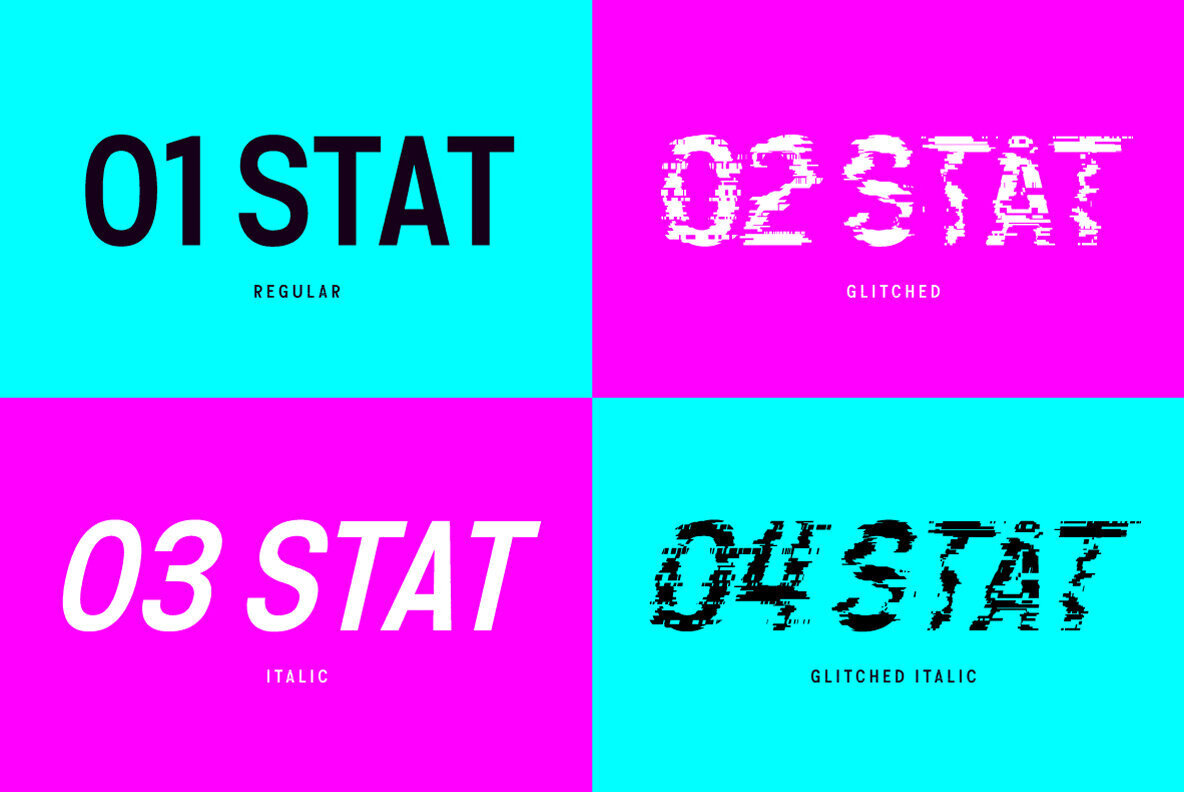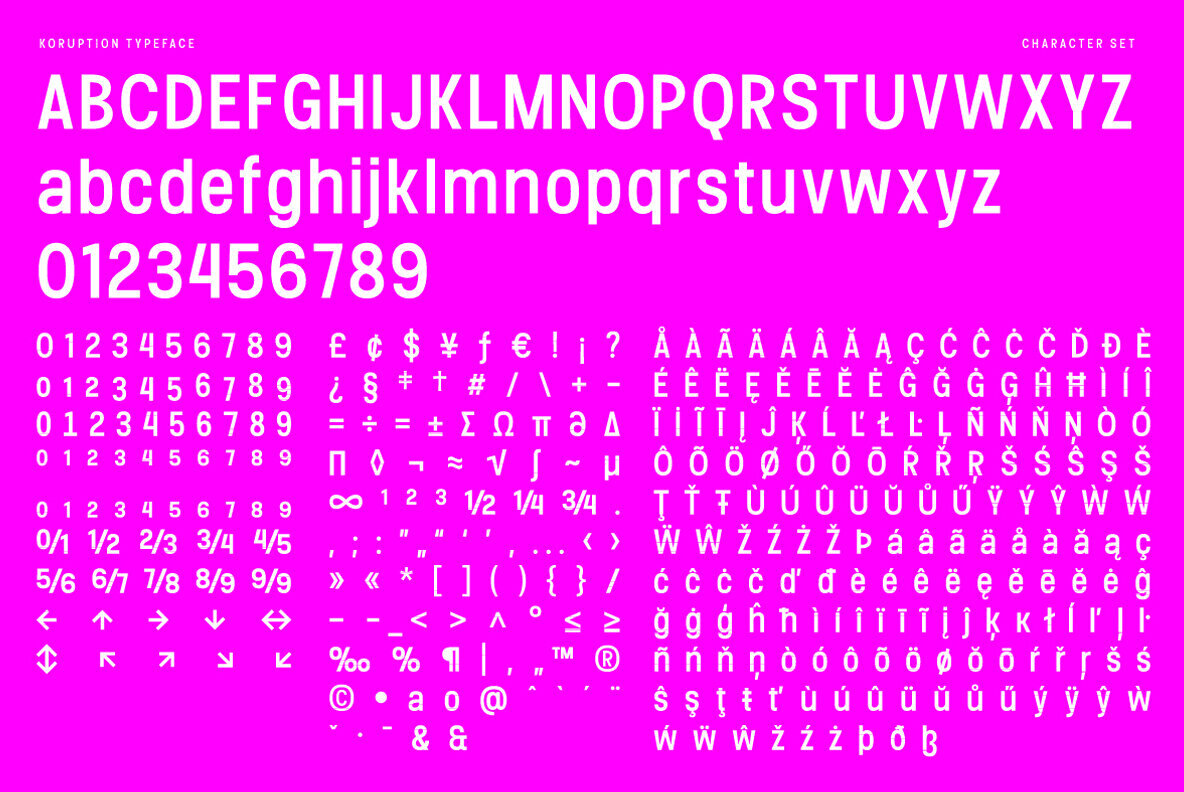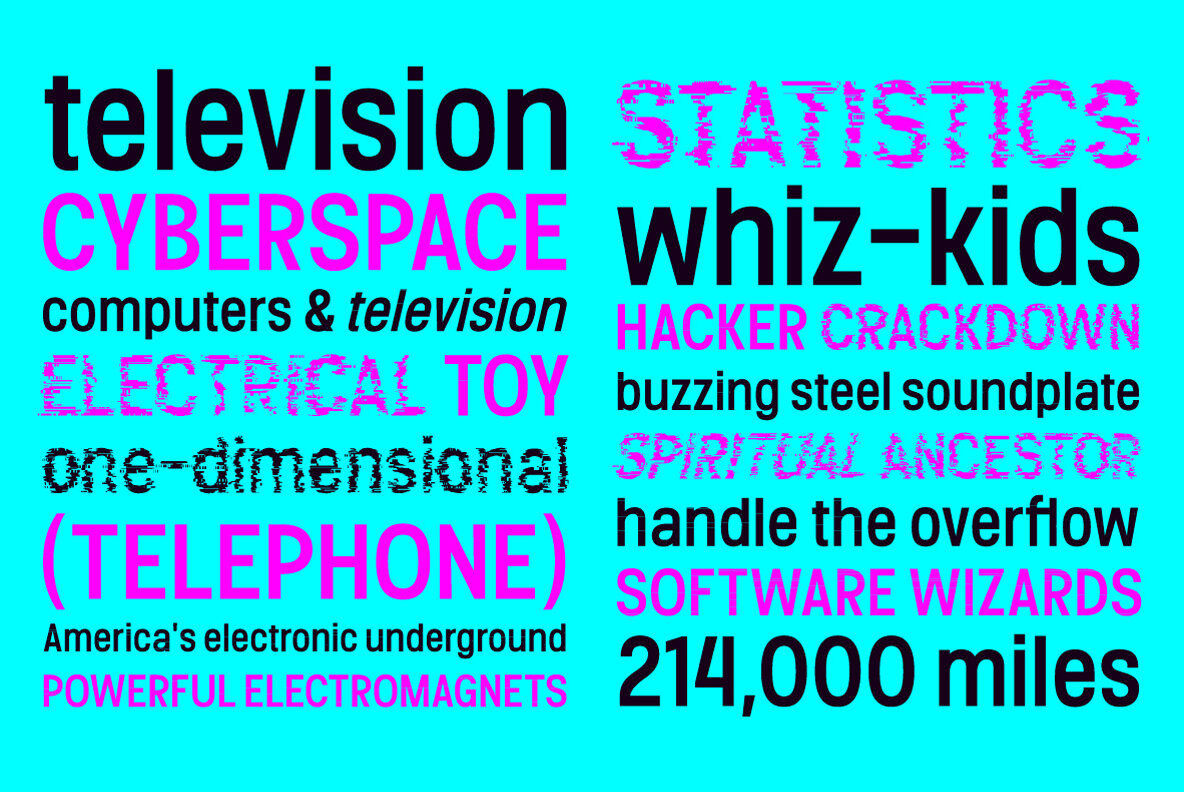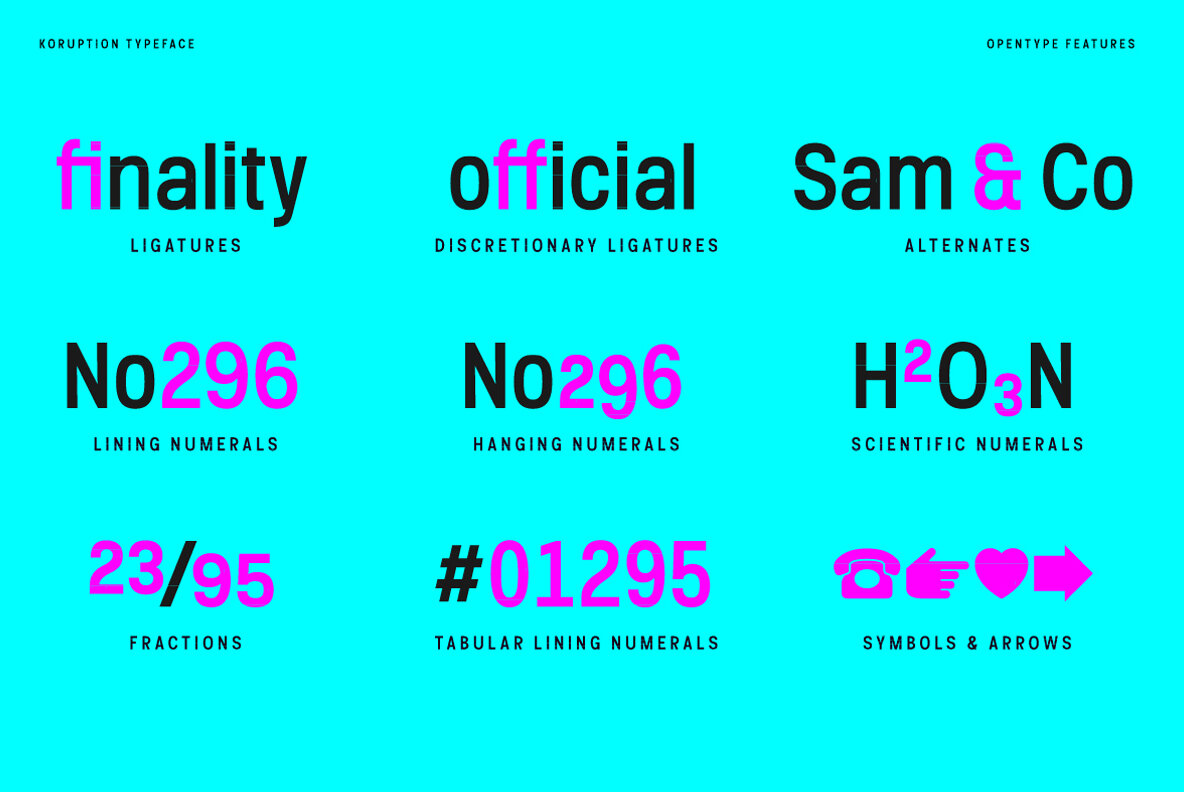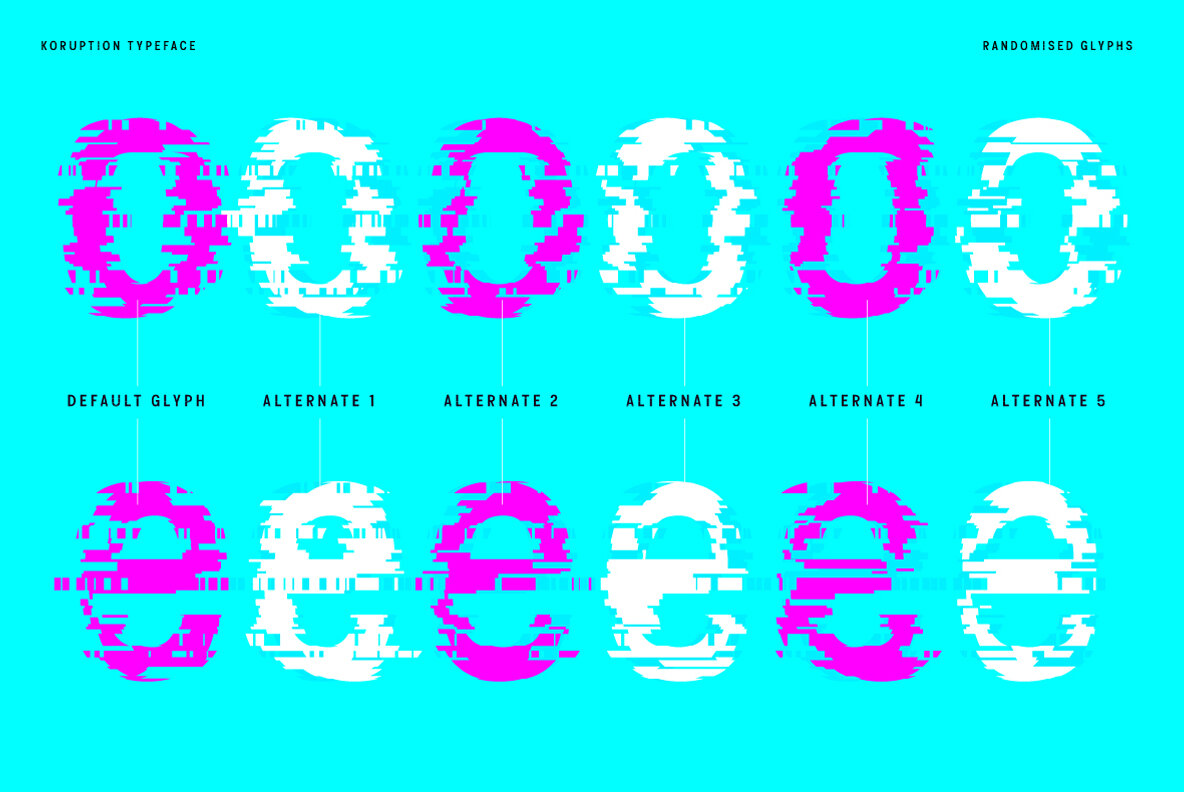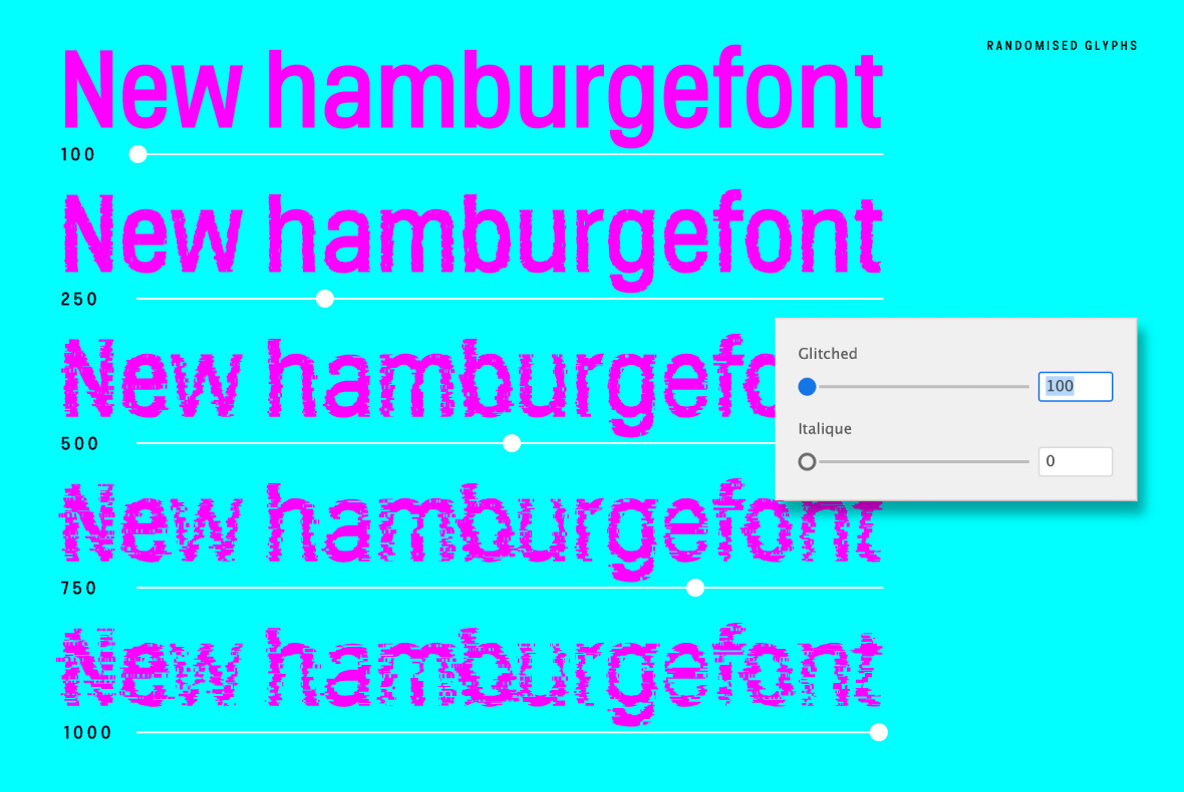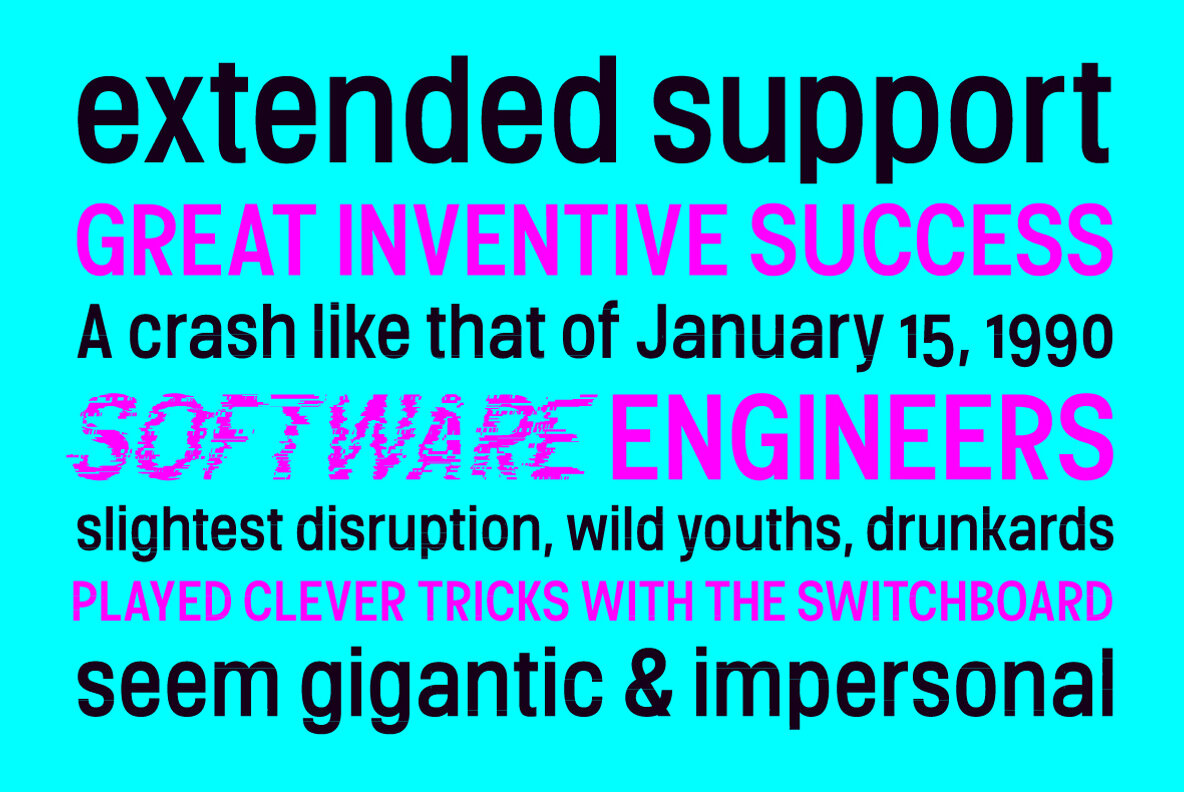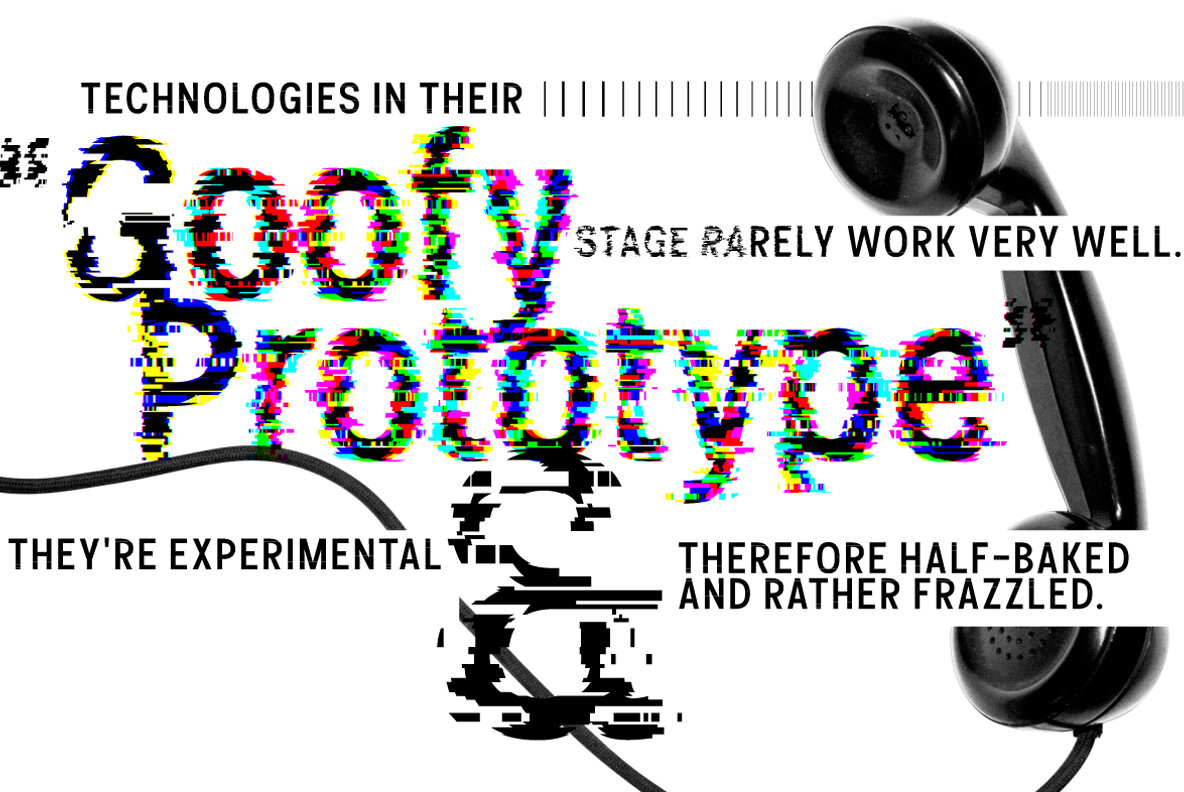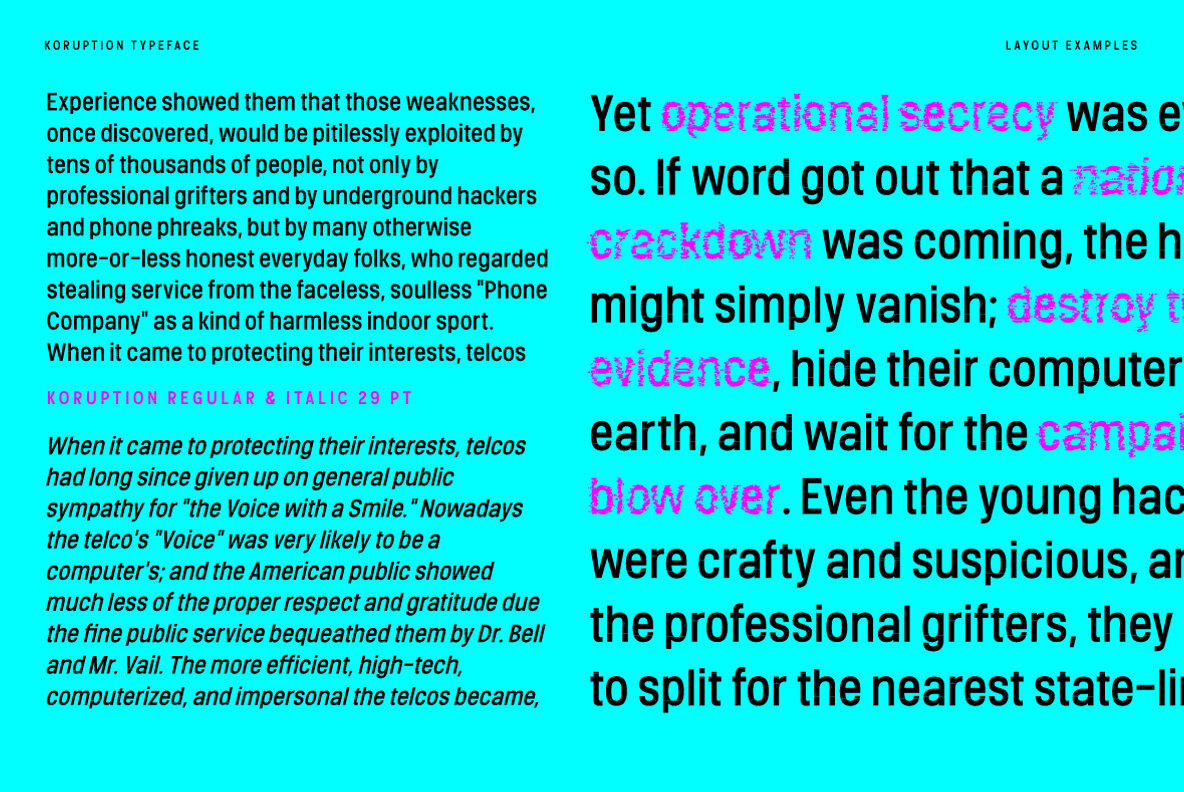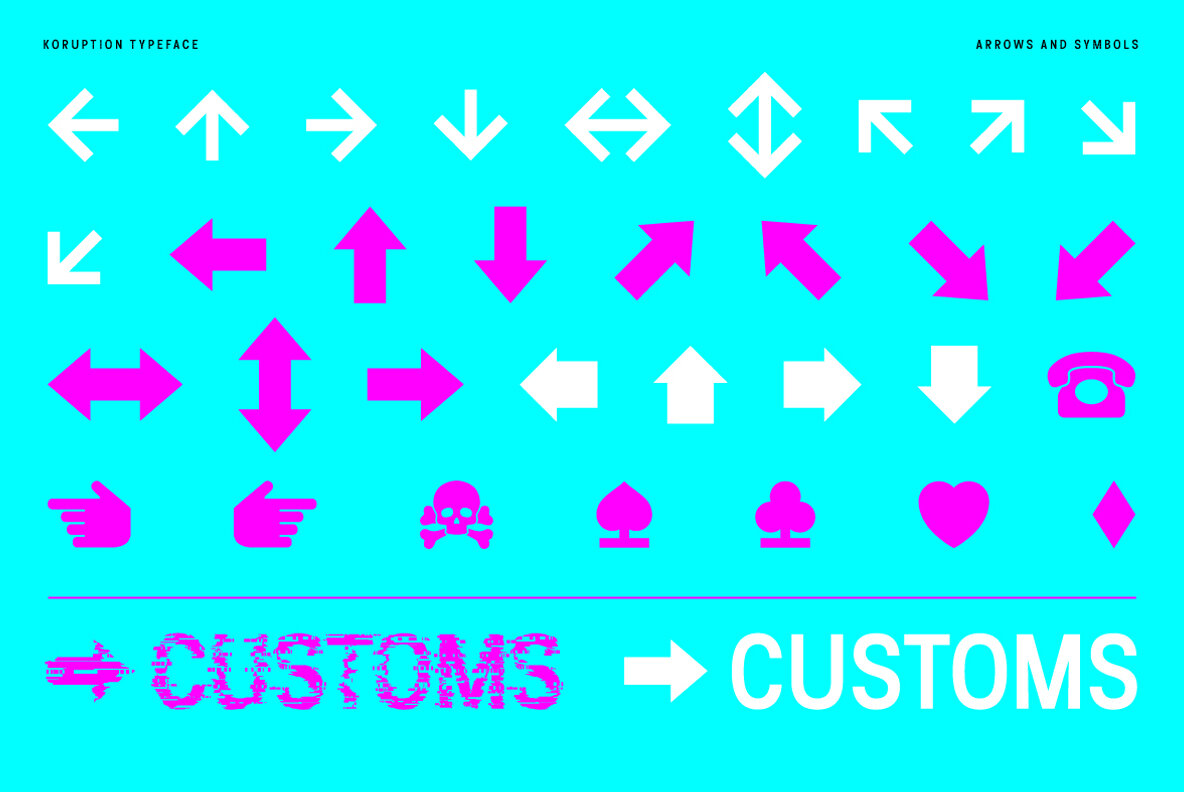
Koruption Font
Koruption is a neo-grotesque typeface family that allows the user to control the amount of distortion in the letters. Thanks to variable axises, this typeface can range from a clean form to a glitches, deformed letter style. To further the effect, these fonts employ further opentype features to alternate the letters, mimicking the real randomness that can arise from distorted letters.
With a full character set and some additional symbols and arrows, Koruption aims to be a versatile display solution, for use in headlines or logos, but it’s variable axis can also be employed as a real time animation in videos or digital applications.